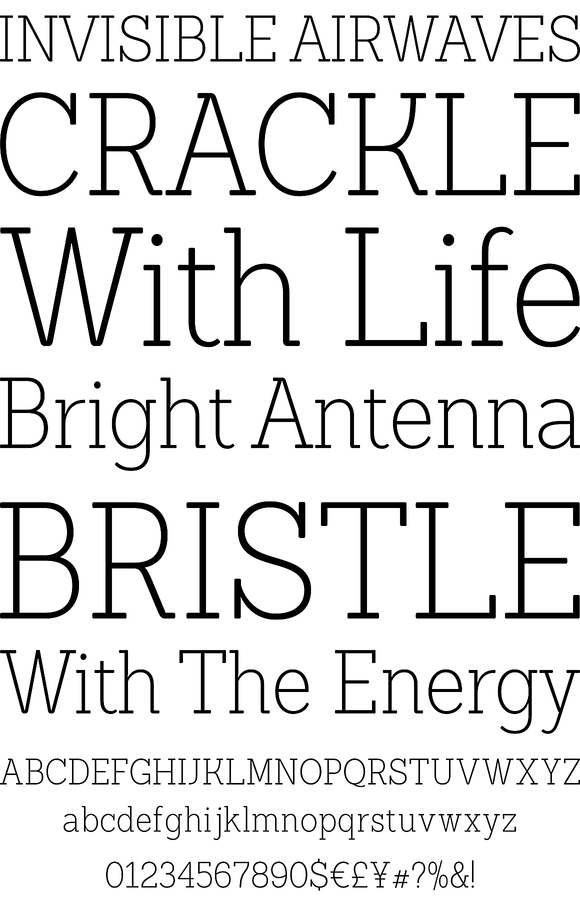
Sanchez Condensed
Foundry: LatinoType
It is a serif typeface belonging to the classification slab serif, or Egyptian, that bears a strong resemblance to the iconic Rockwell, but with rounded edges— offering contrast and balance to the square structure. Sánchez comprises 12 variants, ranging from extra light to black, each of the same x-height. Regular and italic variants are available for free.